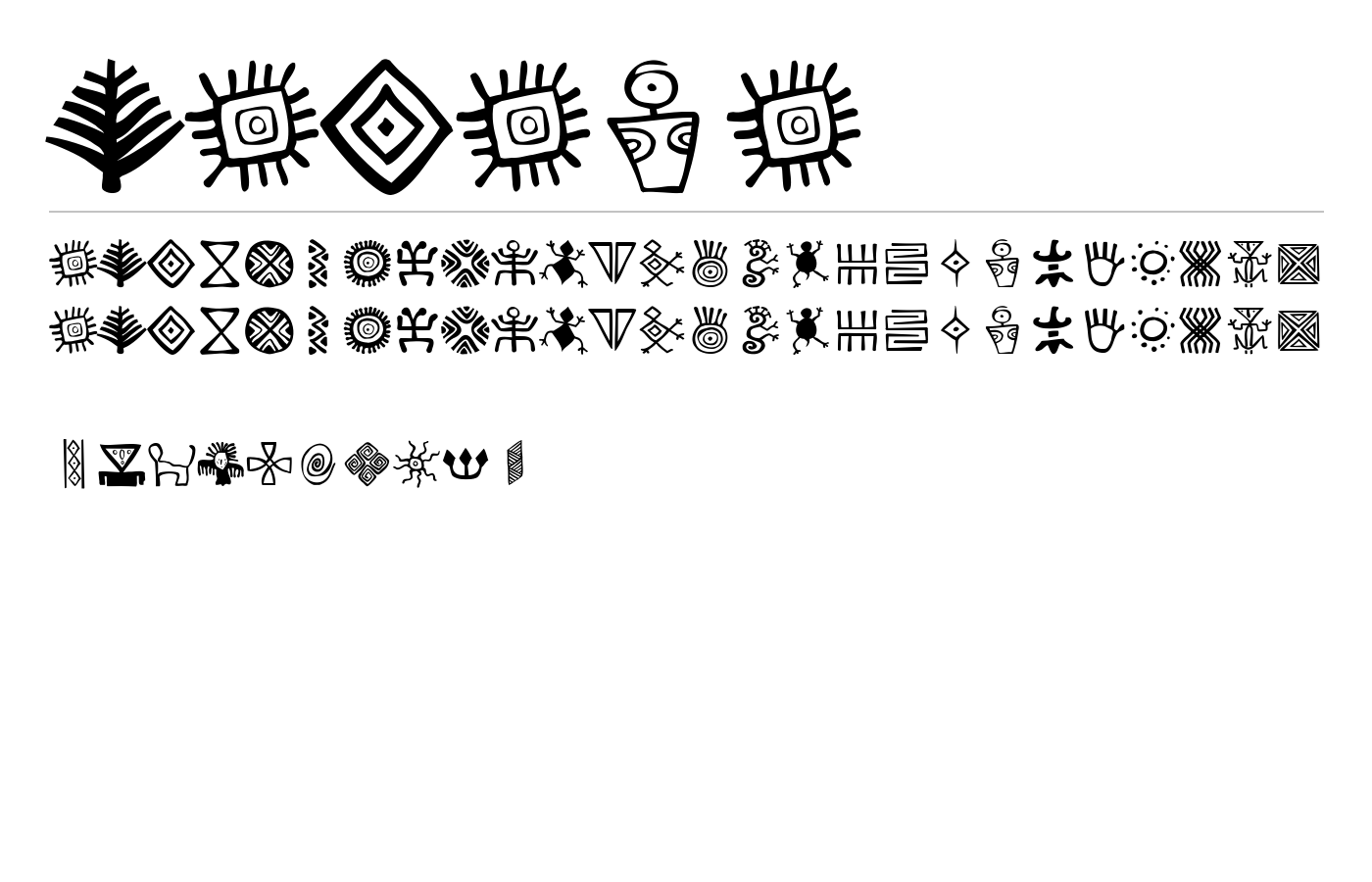
Bacata Font is a decorative symbol typeface inspired by ancient indigenous motifs, featuring bold, expressive shapes with a hand-drawn feel. Its unique, pictorial characters evoke cultural heritage and storytelling, making it ideal for artistic projects, branding with a tribal or historical theme, and creative designs needing a distinctive, symbolic touch. This font works best when used as a standout graphic element rather than for extended text.
Bacata Font
About Bacata Font